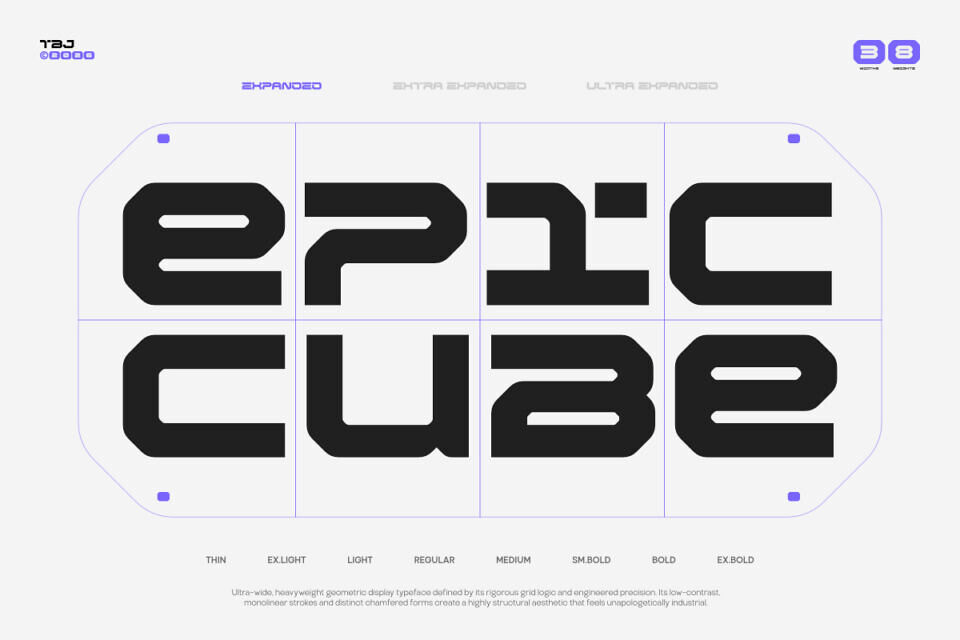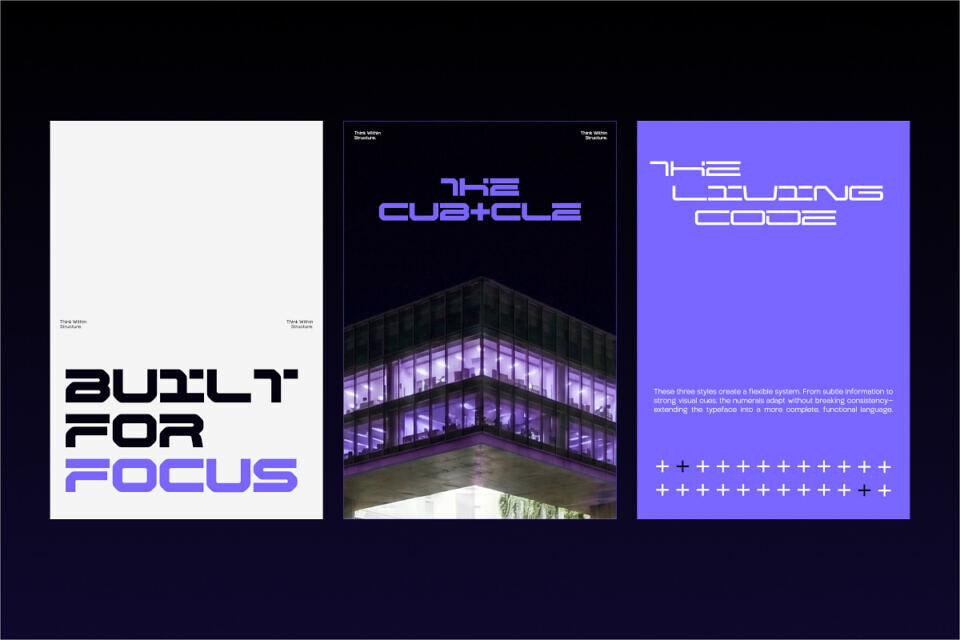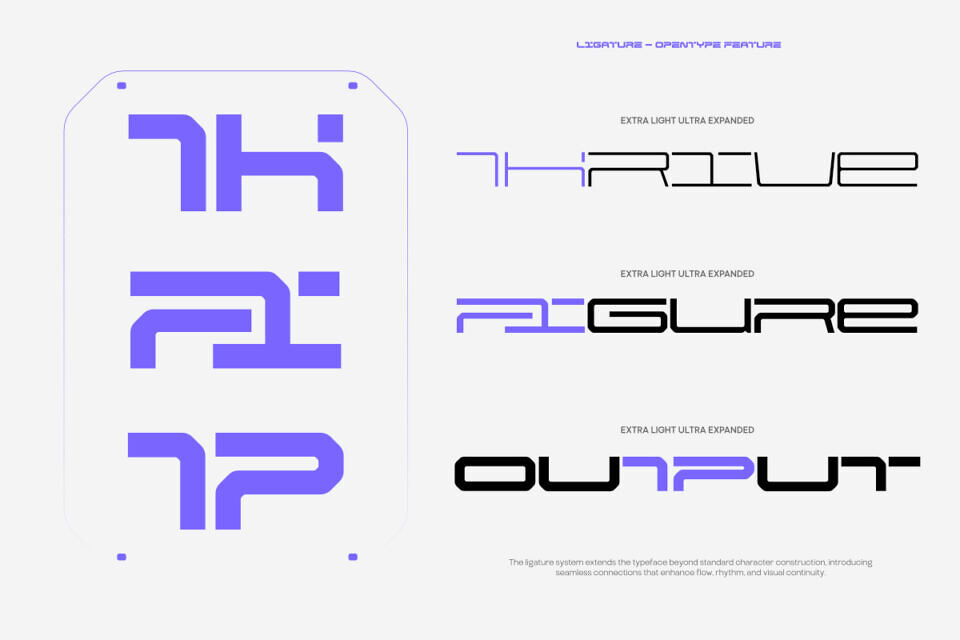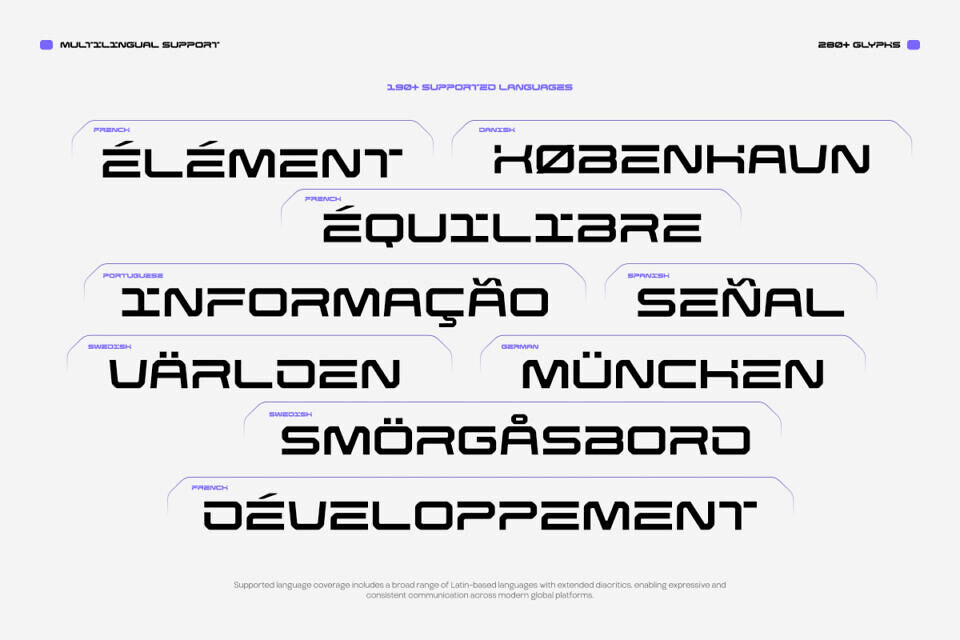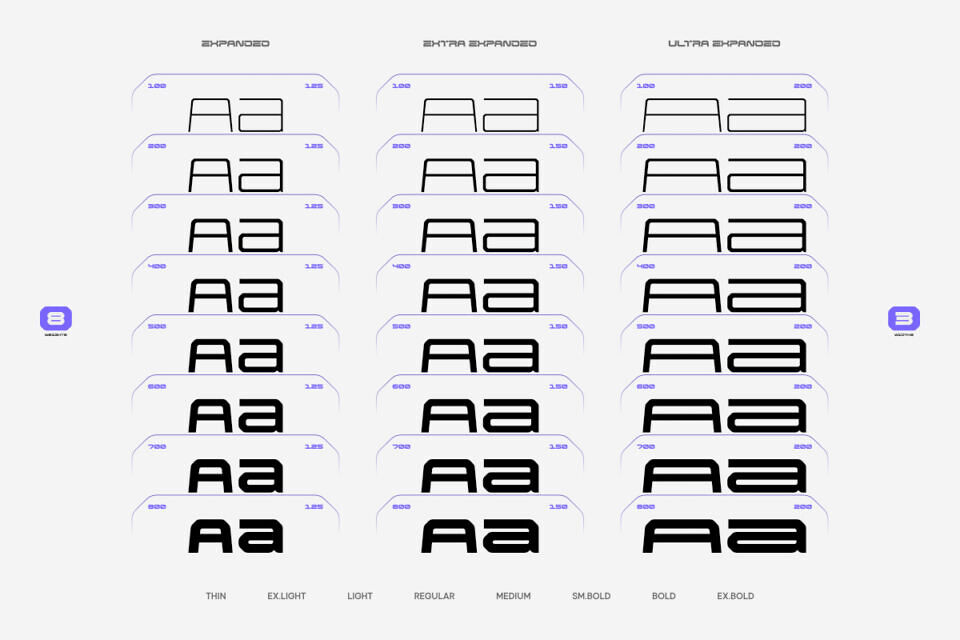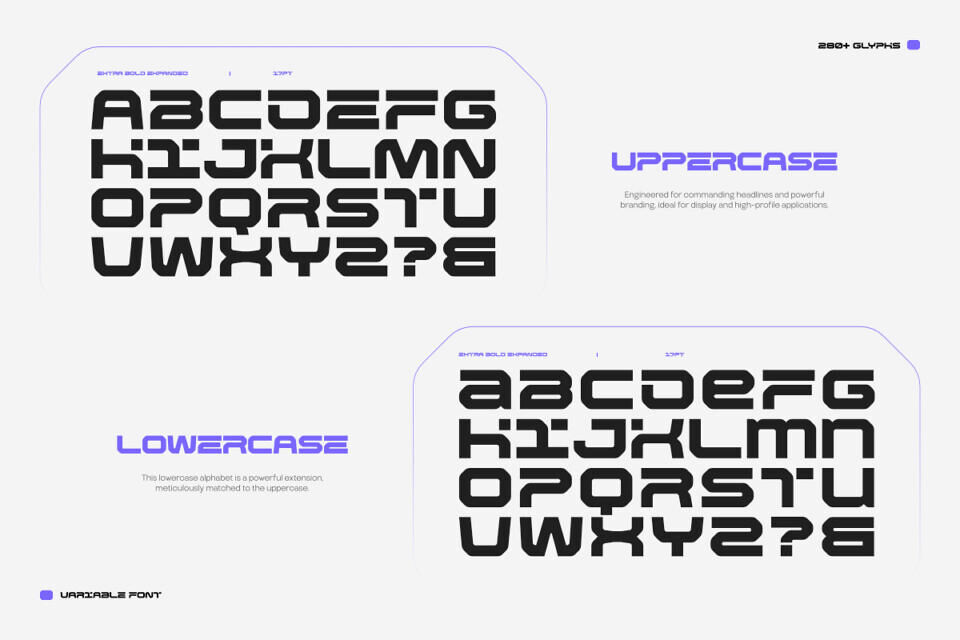
TBJ Epic Cube is a wide-format display sans built on hard-edged, cube-derived geometry: squared terminals, flat cuts, and zero typographic compromise. Rooted in futuristic grotesque tradition, it replaces organic softness with structural rigidity every letterform read as architecture, not ornament.
The squared stroke terminations and uniform stroke weight hold at large display sizes without optical collapse, while the geometric construction stays consistent across all eight weights from Thin to Extra Bold. TBJ Epic Cube Sans Expanded performs at its strongest in contexts where type carries visual weight equal to imagery: sport event branding, sci-fi entertainment identities, gaming UI, esports team graphics, and stadium signage.